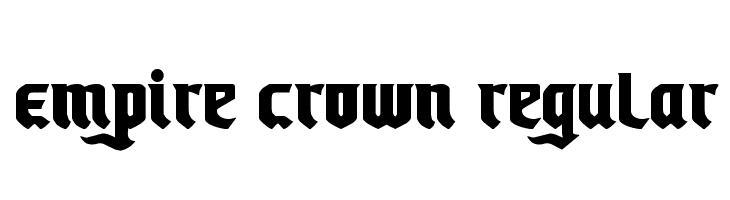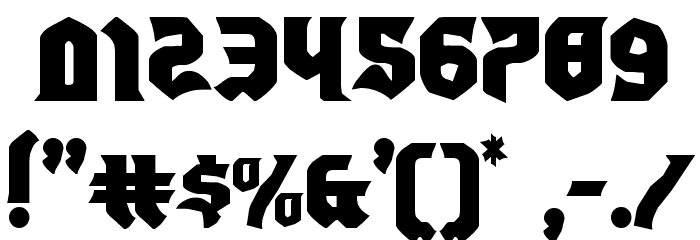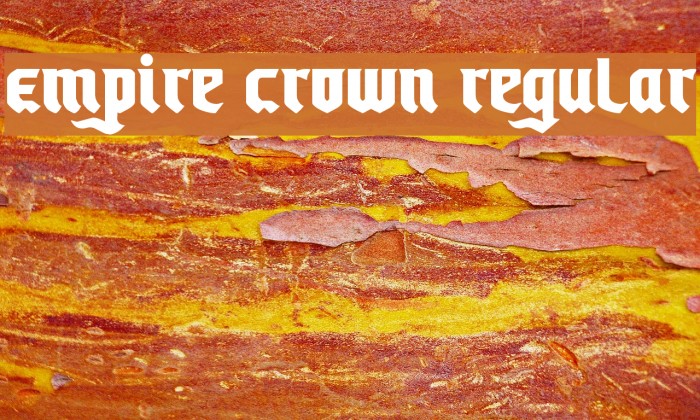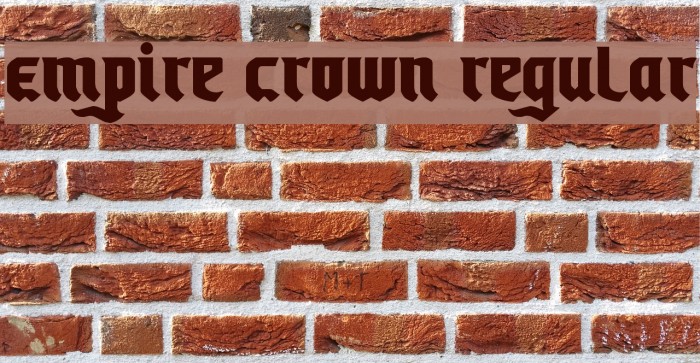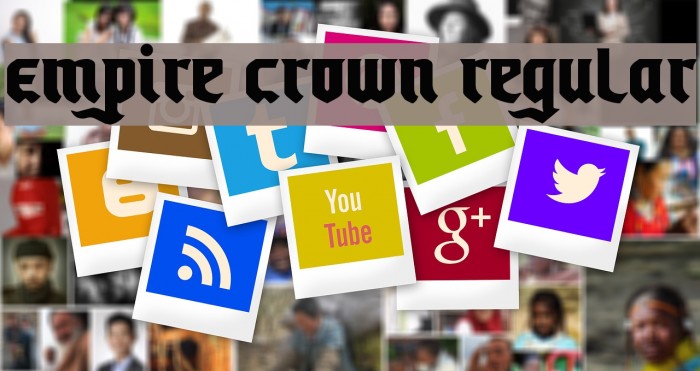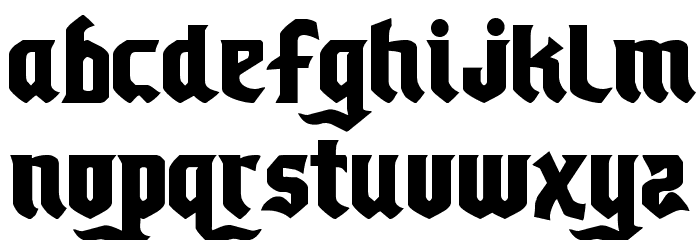
Empire Crown Regular Font
This font exhibits a bold and striking design, characterized by its sharp, angular lines and strong geometric shapes. The uppercase and lowercase letters maintain a consistent style, with a distinct Gothic influence that is both modern and timeless. The numerals and special characters follow the same design principles, ensuring a cohesive look across all text. The font's boldness and unique style make it ideal for impactful headlines and attention-grabbing designs.
A bold, Gothic-inspired font with sharp, angular lines.
• Proposed Projects: Ideal for branding, posters, and any design requiring a strong, impactful presence.
• Category: Blackletter
• Overall Style: Modern
• Use Case: Headlines, Logos